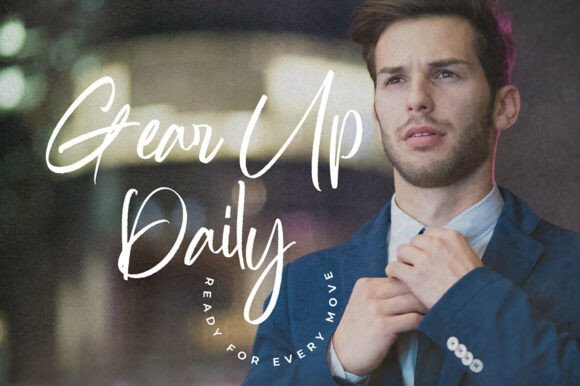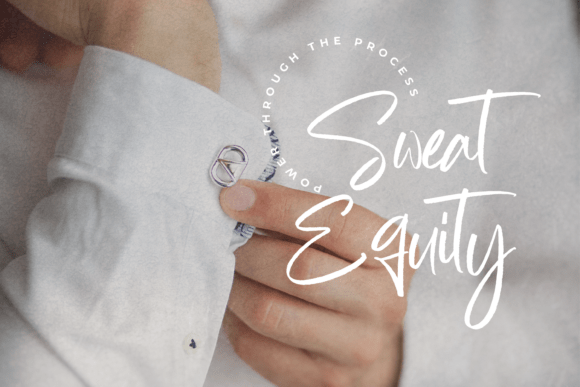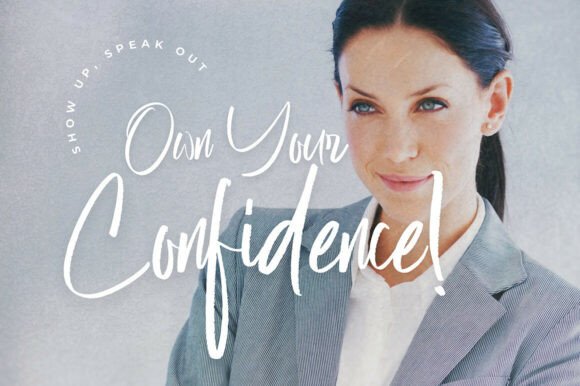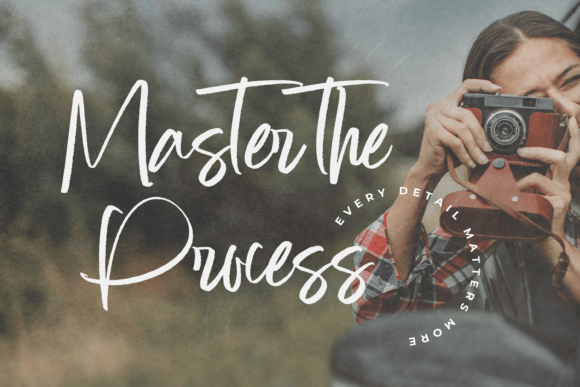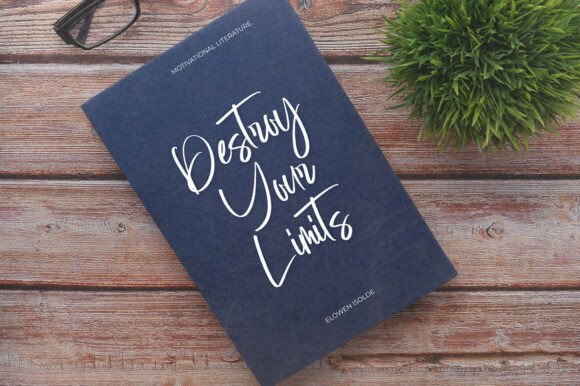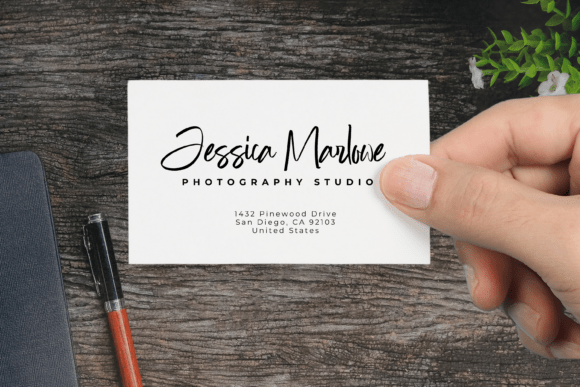
Ginho Hitam Font: Elevate Your Designs with Elegance and Ease
In the world of typography, few fonts manage to strike a balance between elegance and approachability. Ginho Hitam, a modern handwritten script, is one such exceptional typeface that brings together graceful strokes and a laid-back charm. This versatile font is perfect for a variety of design applications, including wedding stationery, logo designs, lifestyle branding, and more. In this article, we’ll explore the unique characteristics of Ginho Hitam and how it can add a human touch to your projects.
The Essence of Ginho Hitam
Ginho Hitam is more than just a font; it’s an expression of sophistication and warmth. Each curve and connection in this typeface is thoughtfully crafted to bring flow, warmth, and personality into every project. The name “Ginho Hitam” evokes a sense of modernity and sleekness, which is reflected in its clean lines and fluid strokes. This font is designed to convey a sense of intimacy and refinement, making it ideal for designs that require a personal touch.
Ginho Hitam boasts several design characteristics that set it apart from other handwritten scripts. Some of its key features include:
- Fluid Strokes: The font’s strokes are smooth and connected, creating a sense of movement and fluidity.
- Elegant Curves: Ginho Hitam’s curves are meticulously crafted to add a touch of sophistication to any design.
- Laid-Back Charm: Despite its elegance, the font maintains a laid-back charm that makes it approachable and relatable.
- Versatility: Ginho Hitam is suitable for a wide range of design applications, from formal to informal.
Perfect for Wedding Stationery
Wedding stationery is one of the most popular applications for Ginho Hitam. The font’s elegant and refined appearance makes it perfect for:
- Wedding Invitations: Add a touch of sophistication to your wedding invitations with Ginho Hitam.
- Save-the-Date Cards: Make your save-the-date cards stand out with this beautiful font.
- Wedding Programs: Use Ginho Hitam to create elegant and easy-to-read wedding programs.
Ideal for Logo Designs and Lifestyle Branding
Ginho Hitam is also an excellent choice for logo designs and lifestyle branding. The font’s unique blend of elegance and approachability makes it perfect for:
- Logos: Create a lasting impression with a logo that features Ginho Hitam.
- Brand Identity: Use this font to develop a strong brand identity that resonates with your target audience.
- Packaging: Add a touch of sophistication to your product packaging with Ginho Hitam.
Why Designers and Crafters Love Ginho Hitam
Designers and crafters appreciate Ginho Hitam for its versatility and aesthetic appeal. Here are some reasons why:
- Easy to Read: The font’s clear and flowing strokes make it easy to read, even at small sizes.
- Highly Versatile: Ginho Hitam can be used for a wide range of design applications, from formal to informal.
- Unique Style: The font’s distinctive style sets it apart from other typefaces, making it perfect for designers who want to create something unique.
Ginho Hitam is a modern handwritten script that offers the perfect blend of elegance and ease. Its unique design characteristics, versatility, and aesthetic appeal make it an excellent choice for designers and crafters. Whether you’re working on wedding stationery, logo designs, or lifestyle branding, Ginho Hitam is sure to elevate your designs and add a human touch that feels intimate and refined.